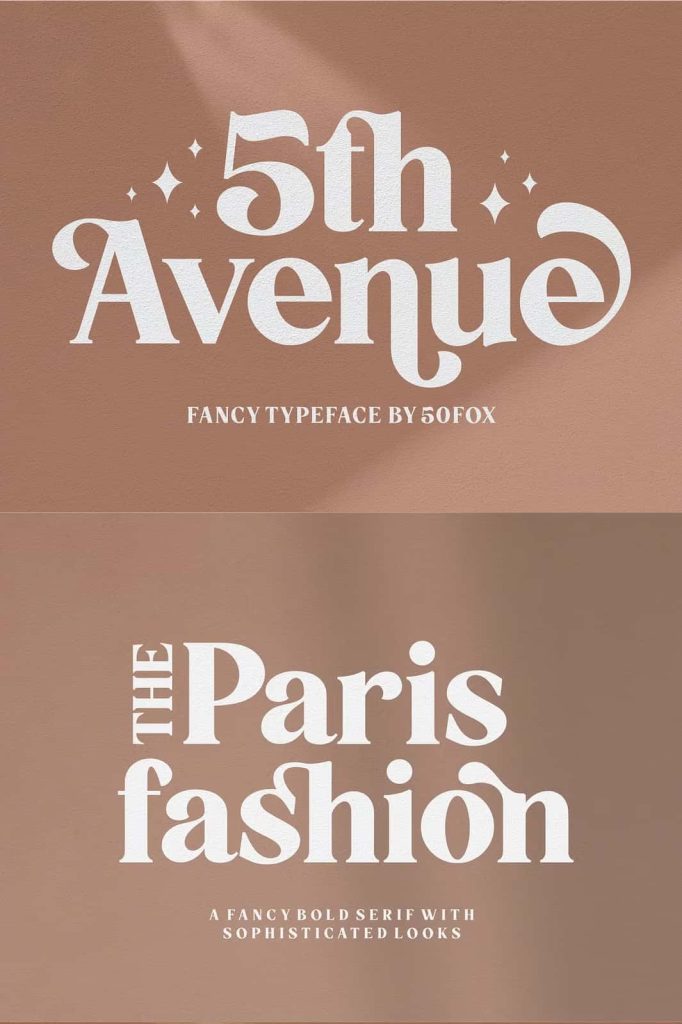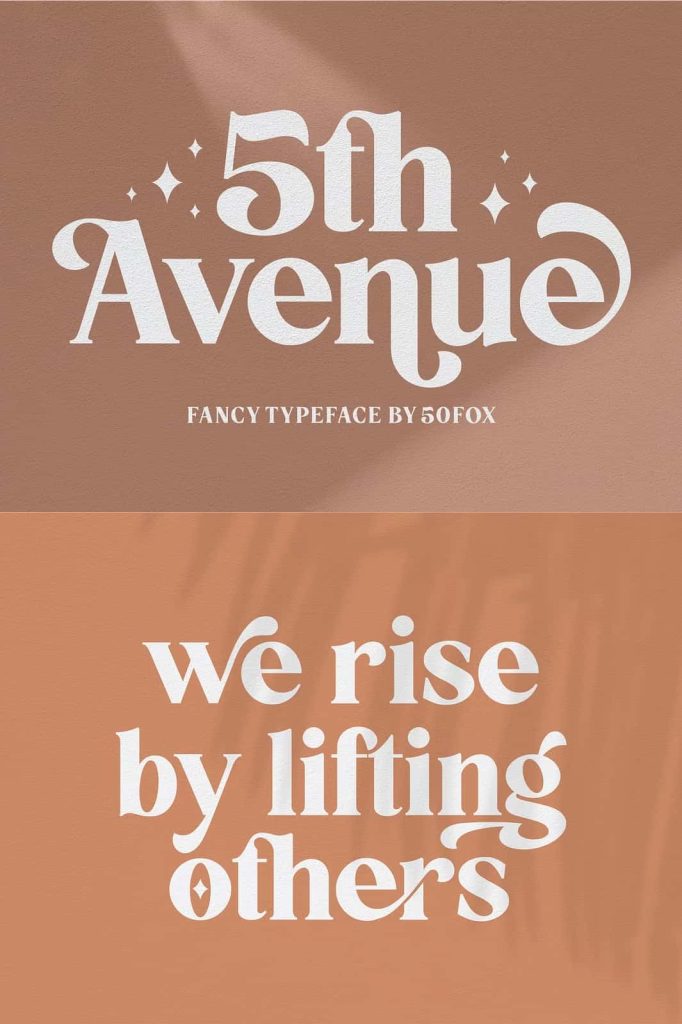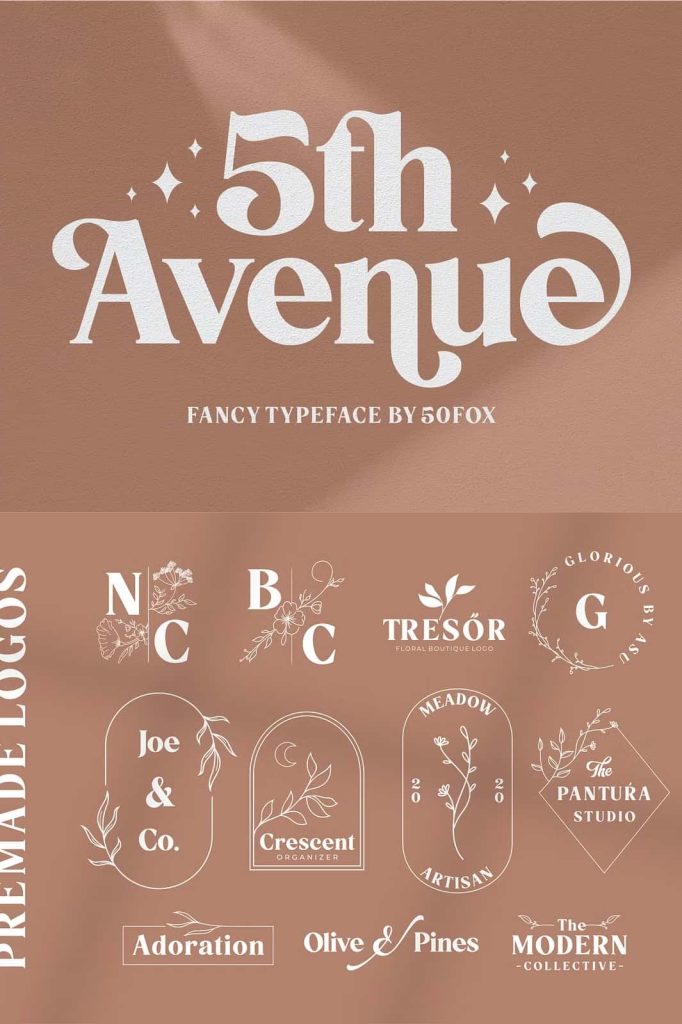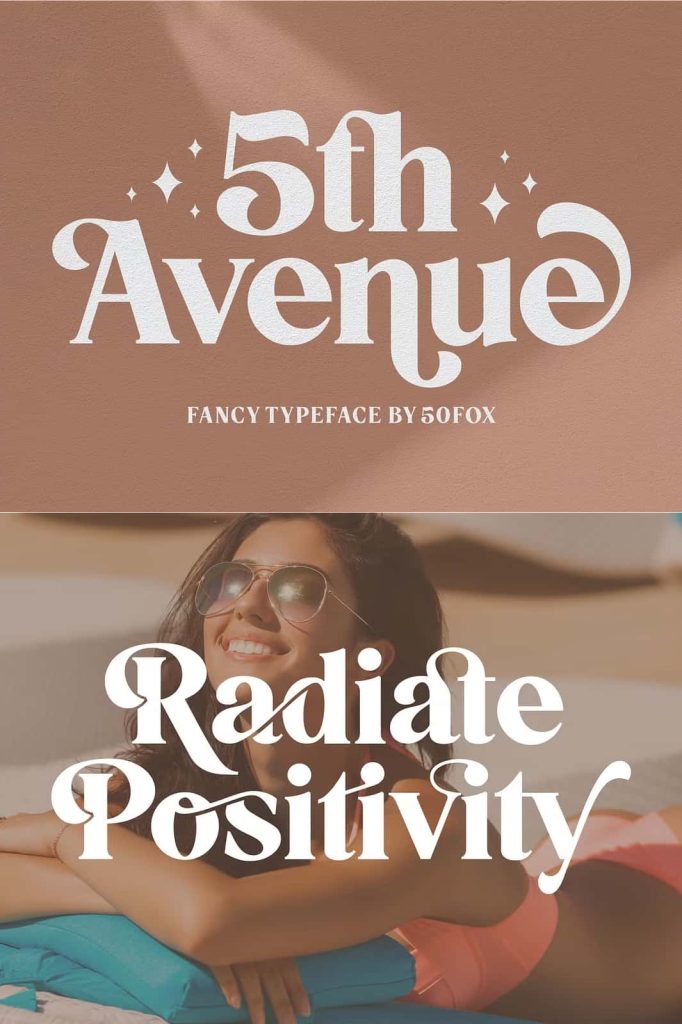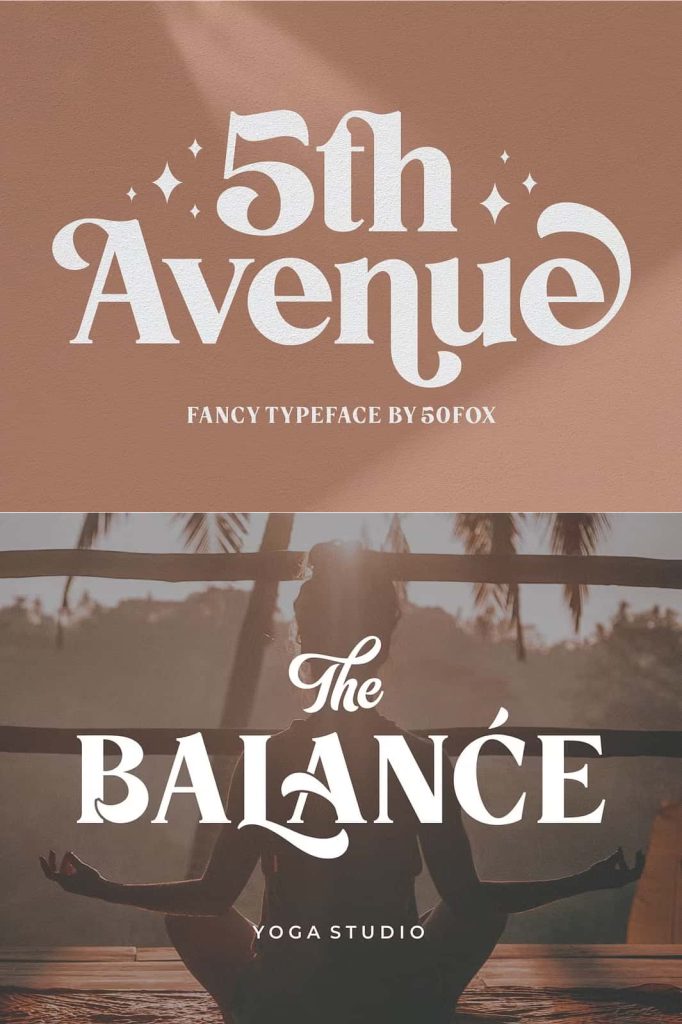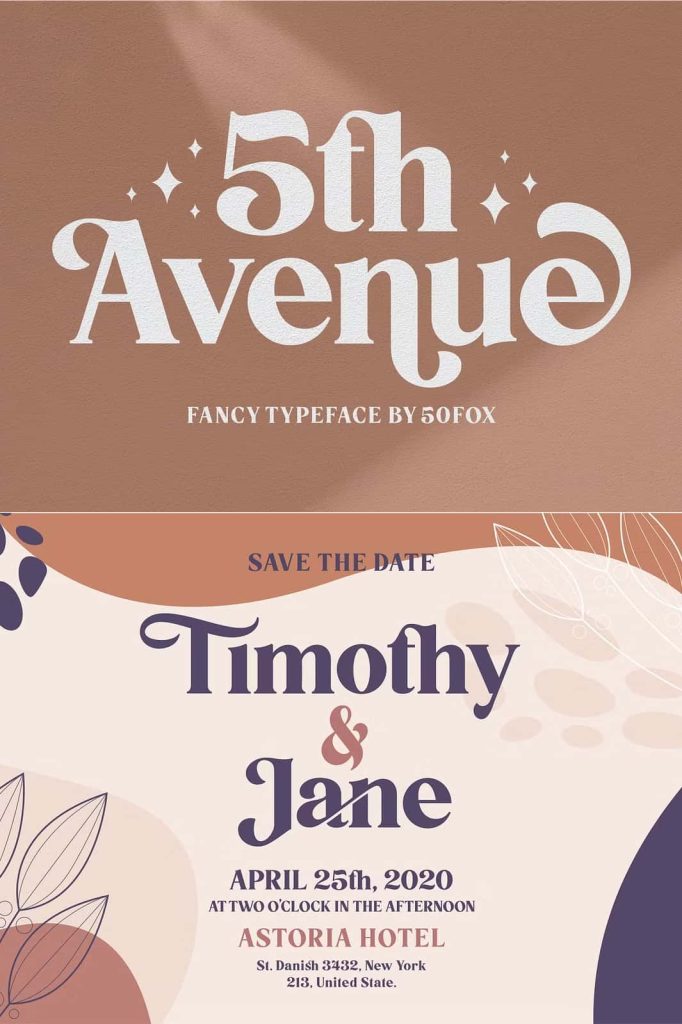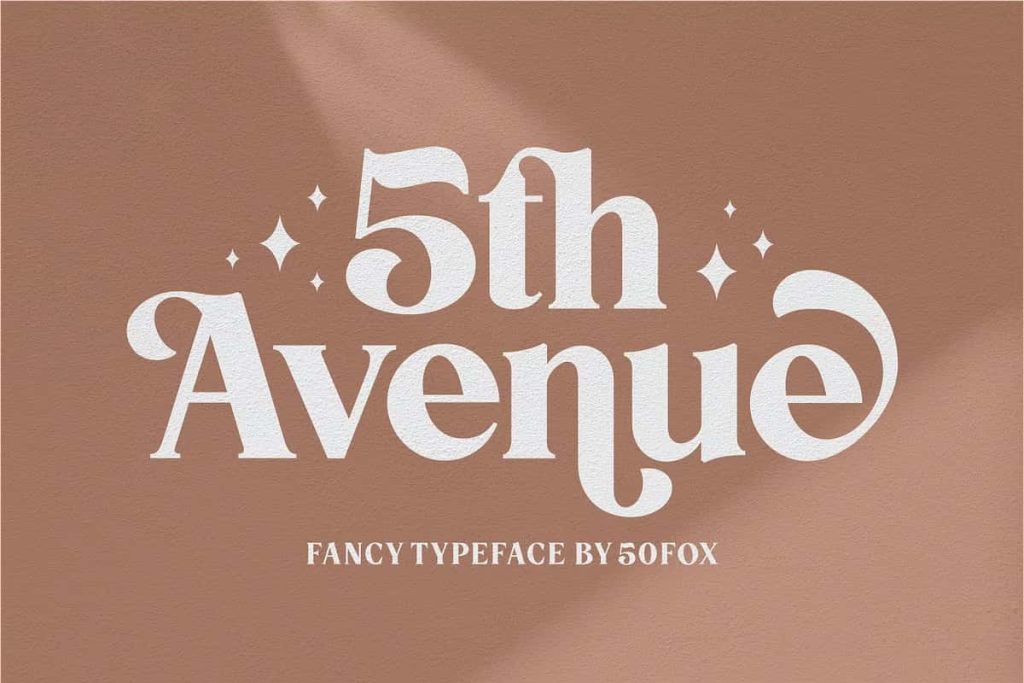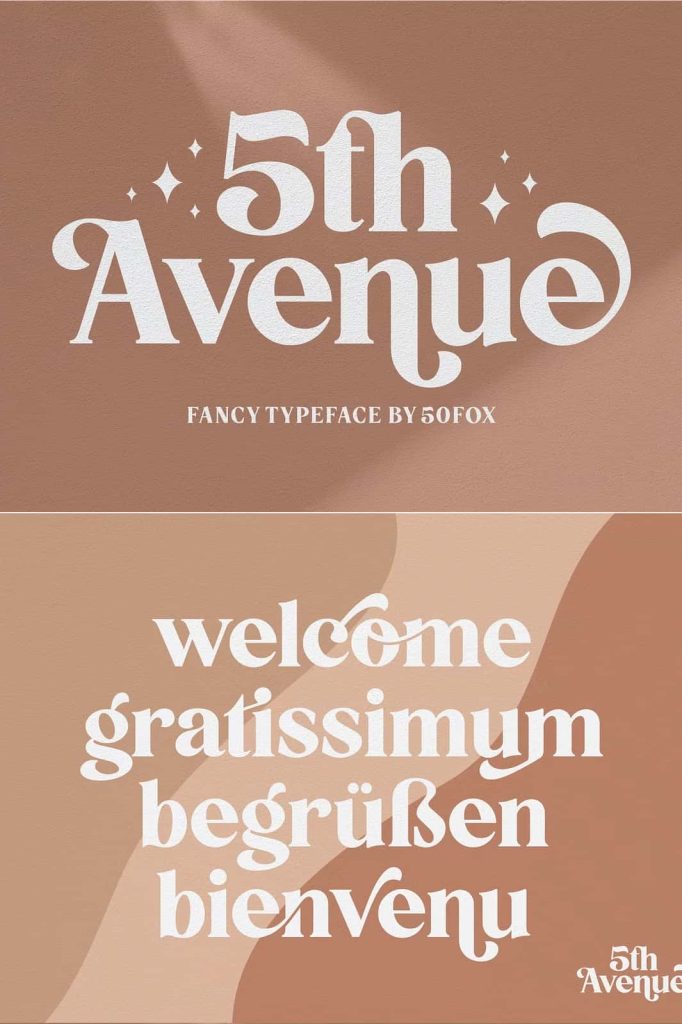
5th Avenue – A Versatile Display Font for Modern Design
5th Avenue is a stylish and versatile display font created to support a wide range of modern design projects. With its elegant structure and balanced letterforms, this typeface allows designers to create visually appealing typography that works across multiple creative industries. From branding and advertising to editorial design and digital graphics, 5th Avenue adapts easily to different design environments.
The font combines clarity, sophistication, and visual impact. Its carefully crafted characters provide strong readability while maintaining a stylish personality that enhances the overall design. Designers can rely on this typeface to deliver consistent results whether they are creating large headlines or decorative text elements.
5th Avenue stands out because of its flexibility. Instead of limiting designers to a single style or purpose, this font supports many different creative directions. Whether you want to build a bold brand identity, design elegant wedding invitations, or craft modern social media graphics, 5th Avenue provides the typographic foundation needed to achieve professional results.
A Versatile Display Font for Creative Projects
Designers often search for fonts that can adapt to multiple projects without losing visual quality. 5th Avenue answers that need by offering a flexible display style that performs beautifully in both print and digital designs. Its clean lines and balanced spacing allow the font to fit seamlessly into various layouts.
The versatility of this font makes it especially valuable for designers who work across different creative fields. A single typeface can support branding, editorial layouts, promotional graphics, and web design without requiring constant font changes. This consistency helps maintain a unified visual identity across different materials.
Because the font combines elegance with clarity, it works equally well in modern minimal designs and more decorative creative projects.
Perfect for Branding and Logo Design
Brand identity design requires typography that communicates personality and professionalism. 5th Avenue provides both qualities through its stylish yet balanced letterforms. Designers can use the font to create memorable logos that feel modern, elegant, and distinctive.
The clean shapes help brand names remain clear and readable while still looking visually striking. Businesses that want to project confidence and creativity can use this font to build a strong typographic identity.
Because of its adaptable design, 5th Avenue works well for many industries including fashion, lifestyle brands, creative studios, and modern retail businesses. Its professional appearance ensures that logos maintain clarity across packaging, signage, and digital platforms.
Ideal Design Applications
- Brand identity and logo design
- Magazine headlines and editorial layouts
- Wedding invitations and event stationery
- Poster and promotional graphics
- Clothing design and merchandise
- Product packaging and labels
- Website headers and hero text
- Social media graphics and marketing materials
Create Elegant Magazine and Editorial Designs
Editorial design relies heavily on strong typography to guide readers through content and establish visual hierarchy. 5th Avenue works exceptionally well in magazine layouts, where designers often require fonts that deliver both elegance and readability.
The balanced proportions of the letters allow titles and headlines to stand out without overwhelming the layout. Designers can use the font for magazine mastheads, article titles, or feature headings that capture the reader’s attention.
In editorial design, typography plays a key role in shaping the overall aesthetic of a publication. 5th Avenue helps create a polished and professional appearance that enhances both print magazines and digital editorial platforms.
Beautiful Typography for Wedding Invitations
Wedding design often demands typography that feels elegant, refined, and memorable. 5th Avenue brings a sophisticated tone to wedding invitations and event stationery. Its graceful letterforms allow designers to craft invitation suites that feel both modern and timeless.
Couples and wedding planners can use this versatile display font to create invitations, save-the-date cards, RSVP cards, and event signage. The stylish structure ensures that important details remain clear while the typography adds visual charm.
Because of its refined aesthetic, the font also works well in anniversary invitations, celebration announcements, and formal event designs.
Enhance Posters, Packaging, and Fashion Designs
5th Avenue also performs exceptionally well in poster design and product packaging. Large display text requires fonts that maintain clarity while creating strong visual presence. This font’s structure allows it to command attention in advertising graphics and promotional materials.
Fashion designers and clothing brands can use the font to create bold typographic graphics for apparel, merchandise, and promotional campaigns. The stylish design fits naturally within fashion-oriented visuals, making it ideal for clothing labels and branded products.
Packaging designers also benefit from the font’s versatility. It helps product names stand out on labels while maintaining a clean and professional appearance.
Perfect for Website Headers and Digital Design
Modern websites often rely on bold typography to establish brand identity and guide visitors through the user experience. 5th Avenue works beautifully as a website header font because of its strong visual presence and readability.
Designers can use the font in hero sections, landing page titles, promotional banners, and navigation highlights. The clean design ensures that text remains clear on both desktop and mobile screens.
The font also works well when layered over background images. As a stylish text overlay, it helps designers create visually engaging compositions that enhance website aesthetics and marketing visuals.
Create Stylish Typography with 5th Avenue
5th Avenue is a versatile display font that empowers designers to create elegant, modern, and impactful typography. Its adaptable structure allows it to perform well across branding, editorial design, event stationery, marketing graphics, and digital platforms.
Whether you are building a brand identity, designing a magazine layout, creating wedding invitations, or developing website graphics, this font provides the flexibility needed to support your creative vision. With its stylish personality and professional appearance, 5th Avenue helps transform ordinary text into beautiful and memorable typography.